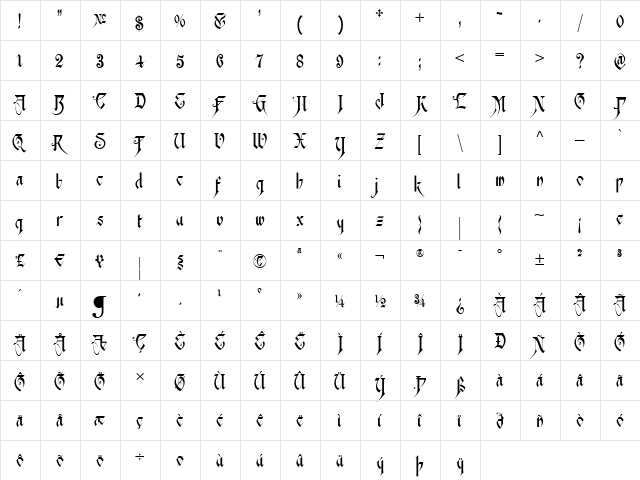
Scottsdale Text NF Regular
Design Context for Scottsdale Text NF Typeface
Scottsdale Text NF is a composed and adaptable typeface that performs quietly and consistently across a wide range of design contexts.